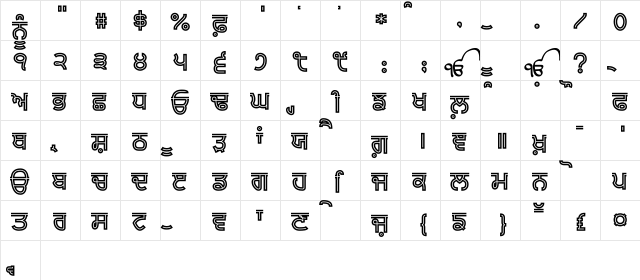
Bulara Hollow Bold Bold
| Foundry | Paul Alan Grosse |
| Designer | Paul Alan Grosse |
Design Context for Bulara Hollow Bold Typeface
Bulara Hollow Bold offers clean, dependable letterforms without strong stylistic allegiance, making it a practical choice for designers who need flexibility. Its bold stroke weight gives it real presence on the page.